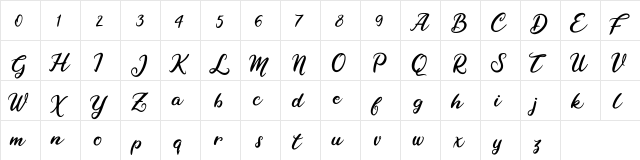
| Foundry | Fenny Wiryani |
| Designer | Fenny Wiryani |
Design Context for Raybent Mango Typeface
Raybent Mango is a composed and adaptable typeface that performs quietly and consistently across a wide range of design contexts.